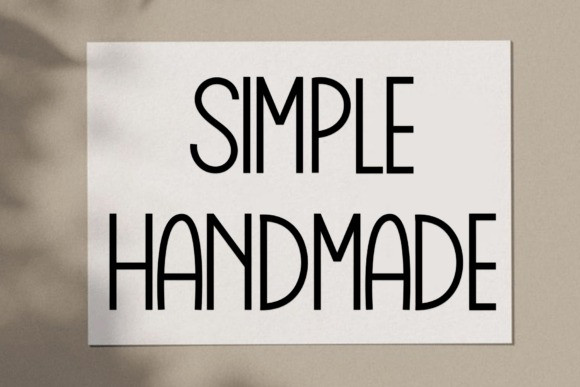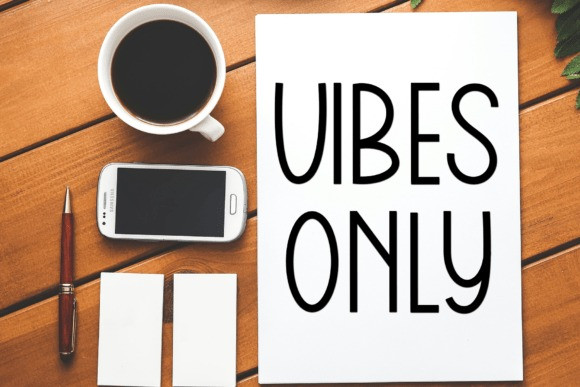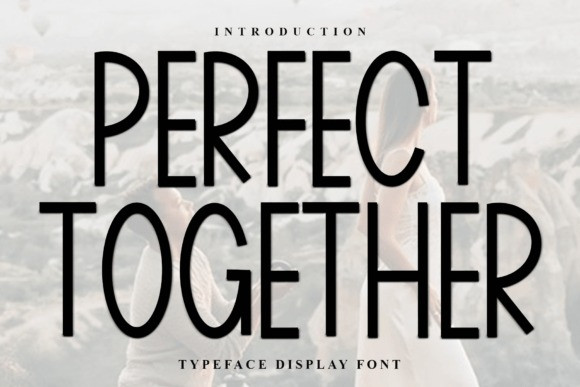
Perfect Together Font
Perfect Together Font is a tall and refined display font with clean lines and a modern minimalist look. Its slender, all-caps style exudes elegance and balance, making it perfect for wedding designs, fashion branding, editorial layouts, and sophisticated titles. This typeface combines simplicity with charm, delivering a timeless and versatile visual impact.